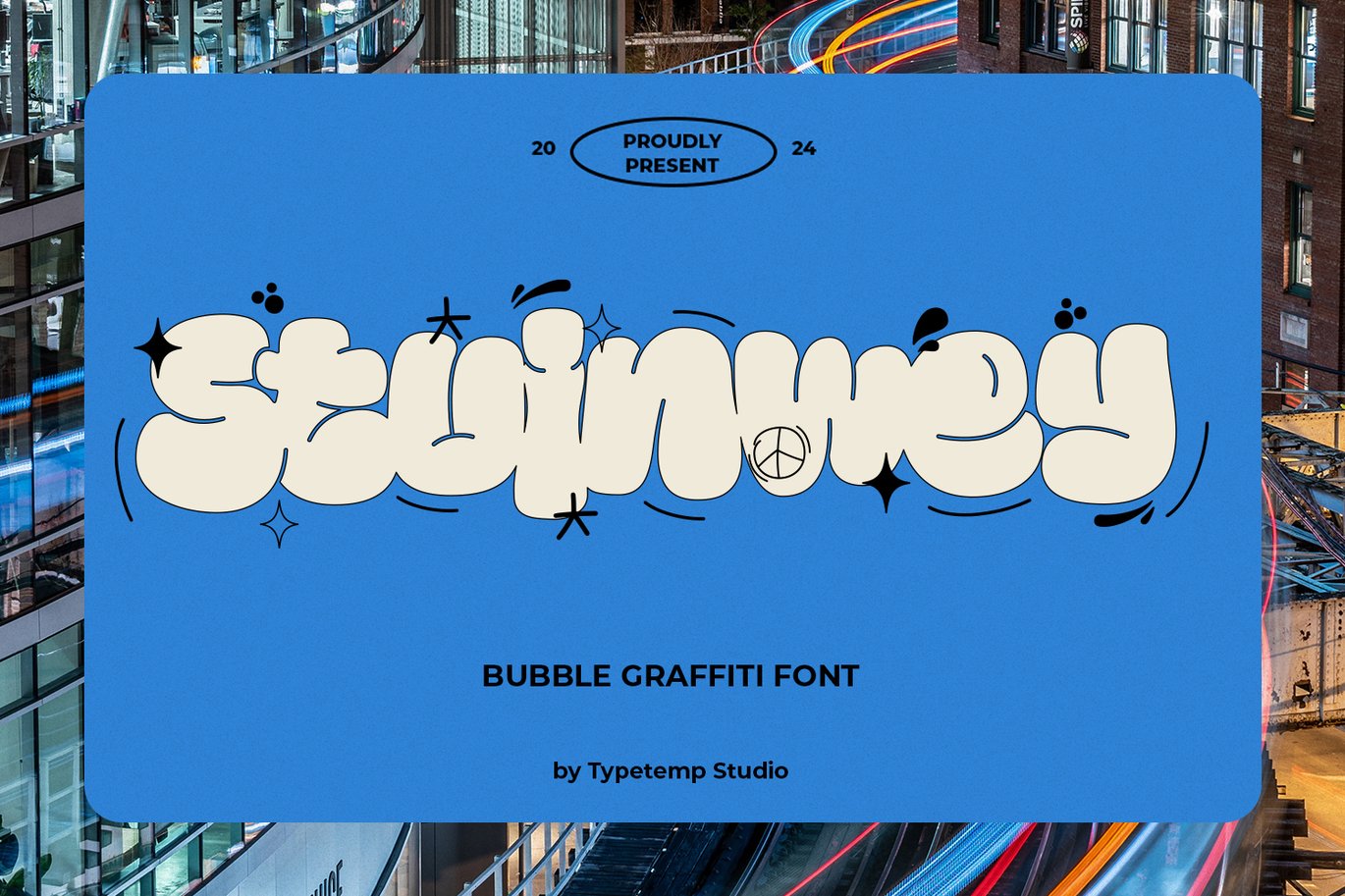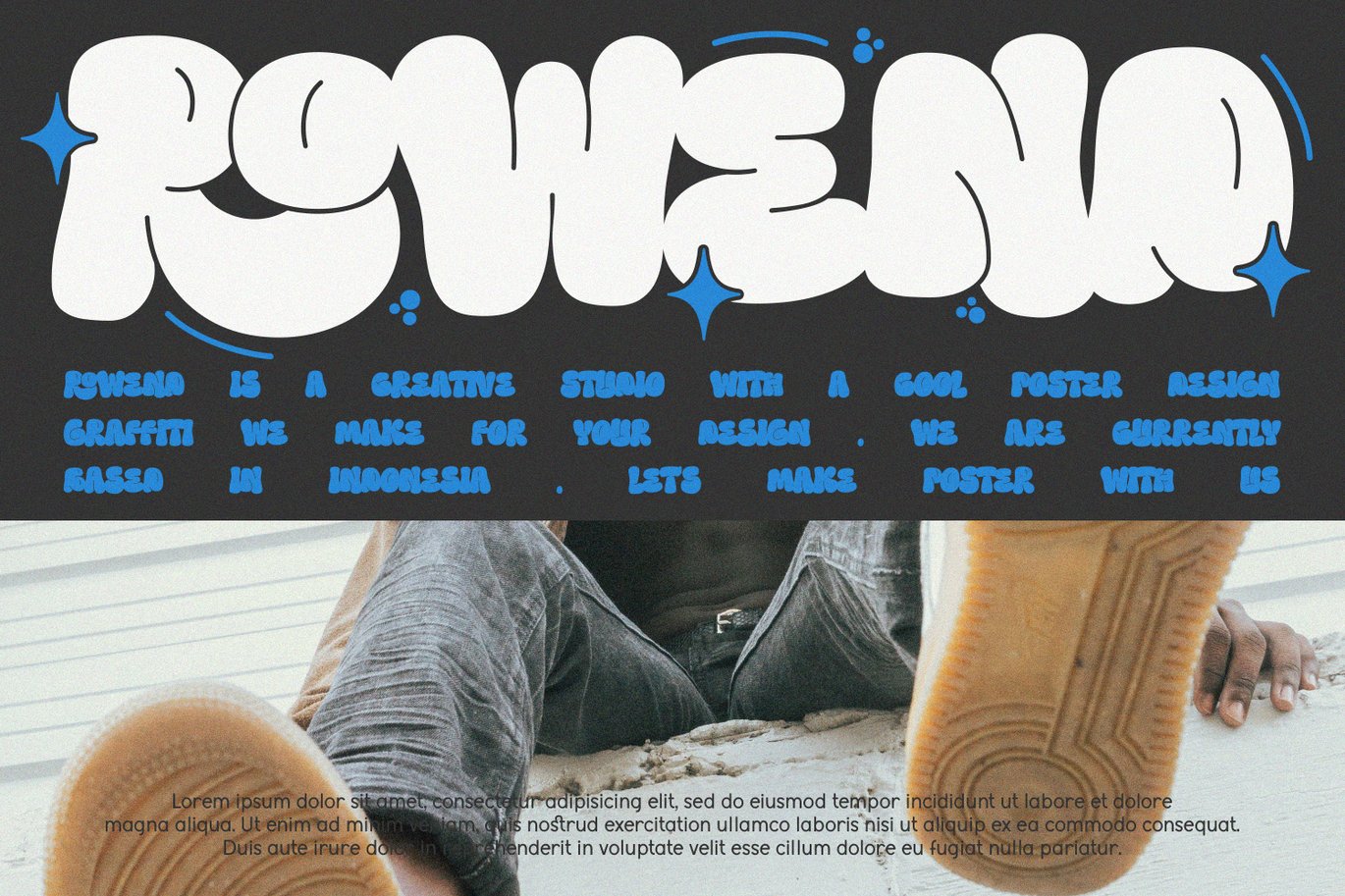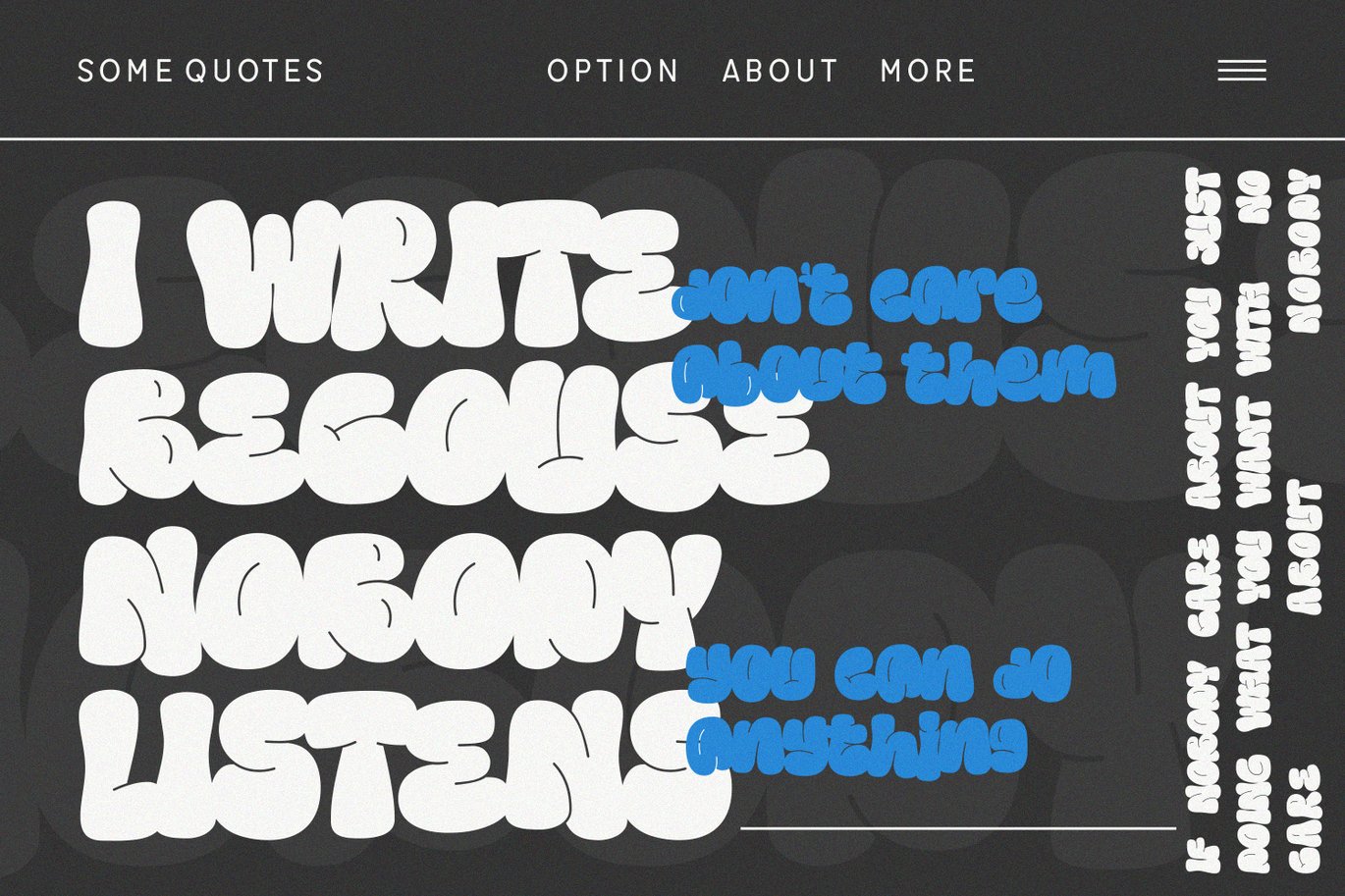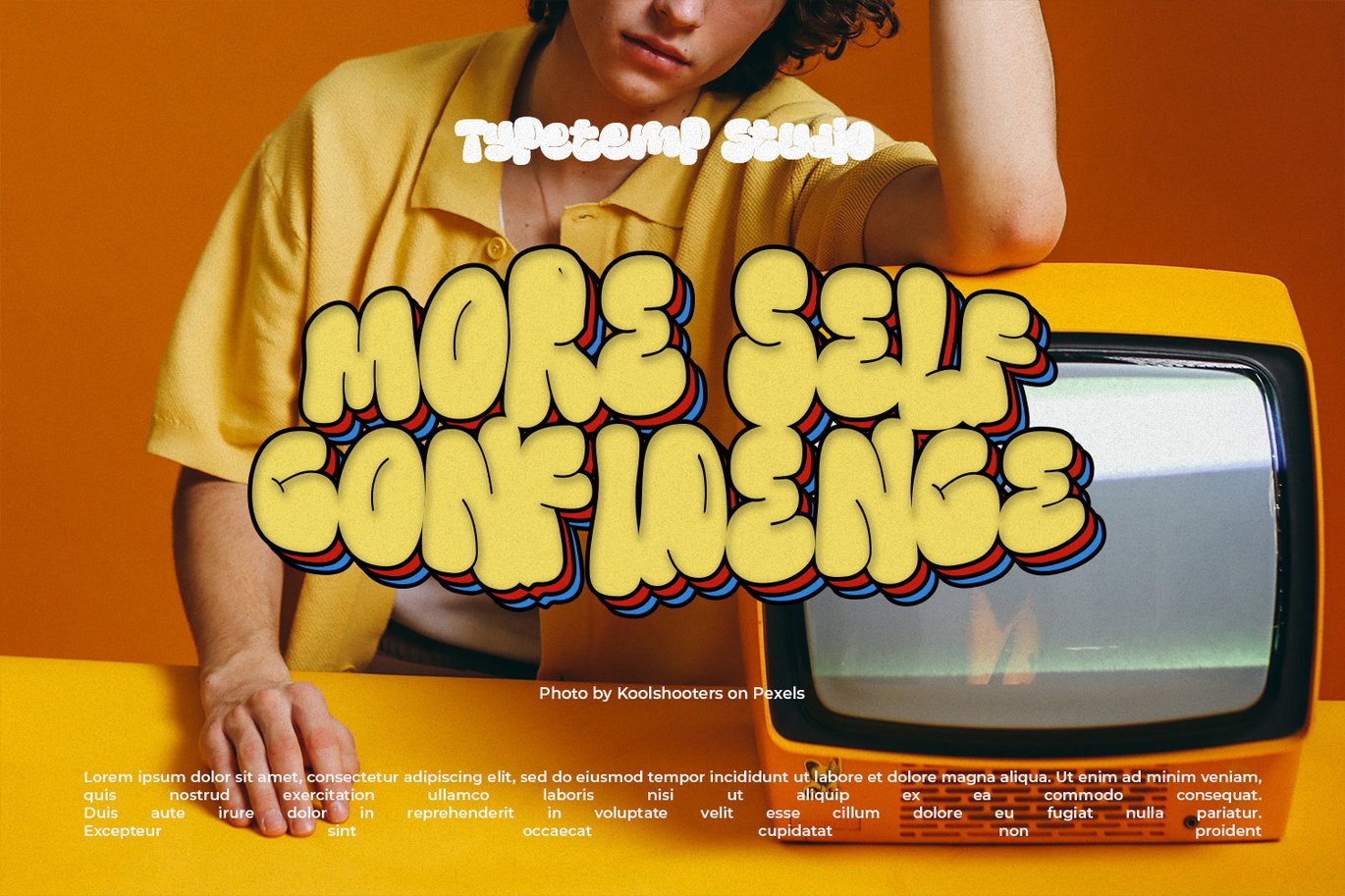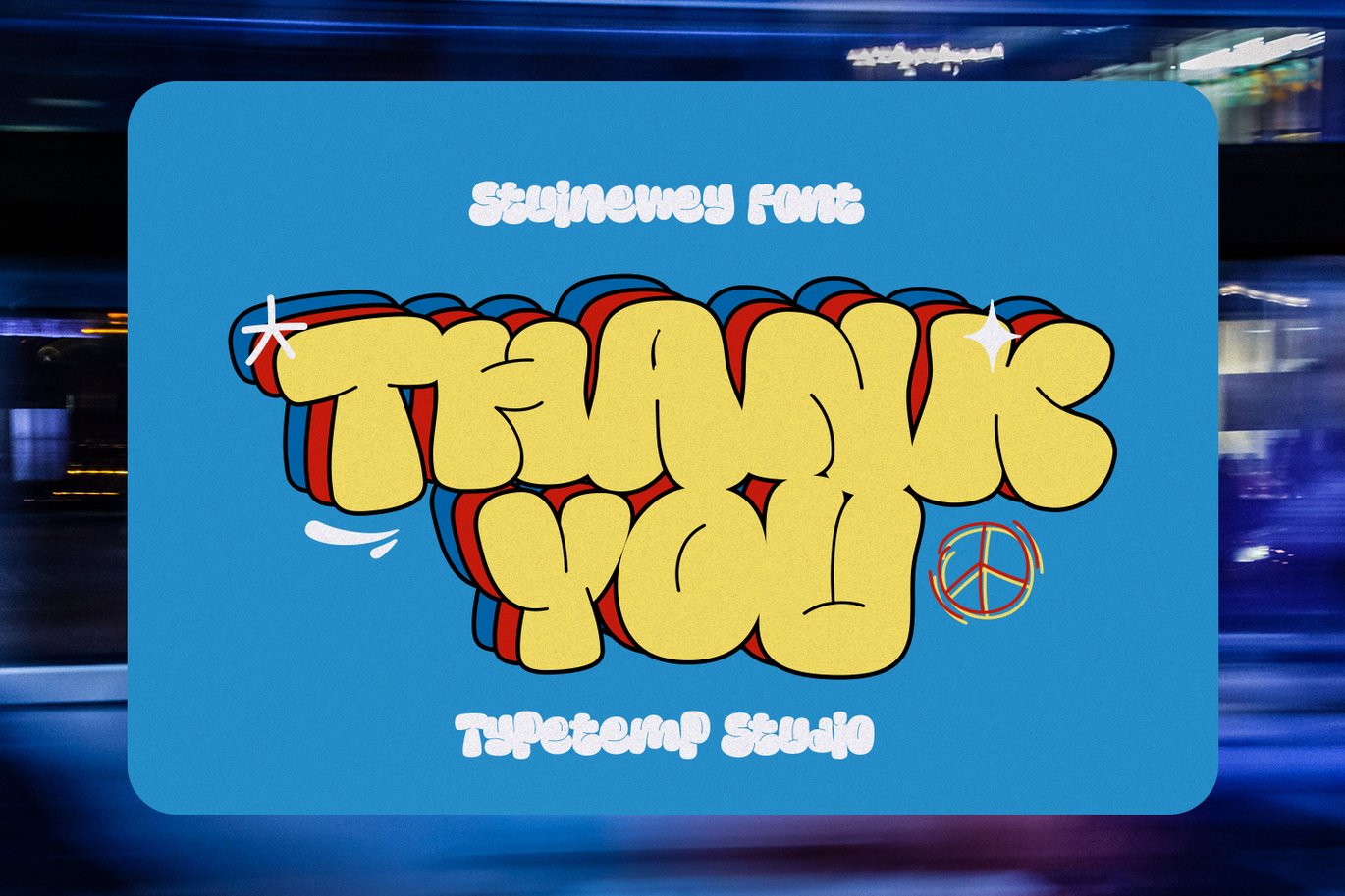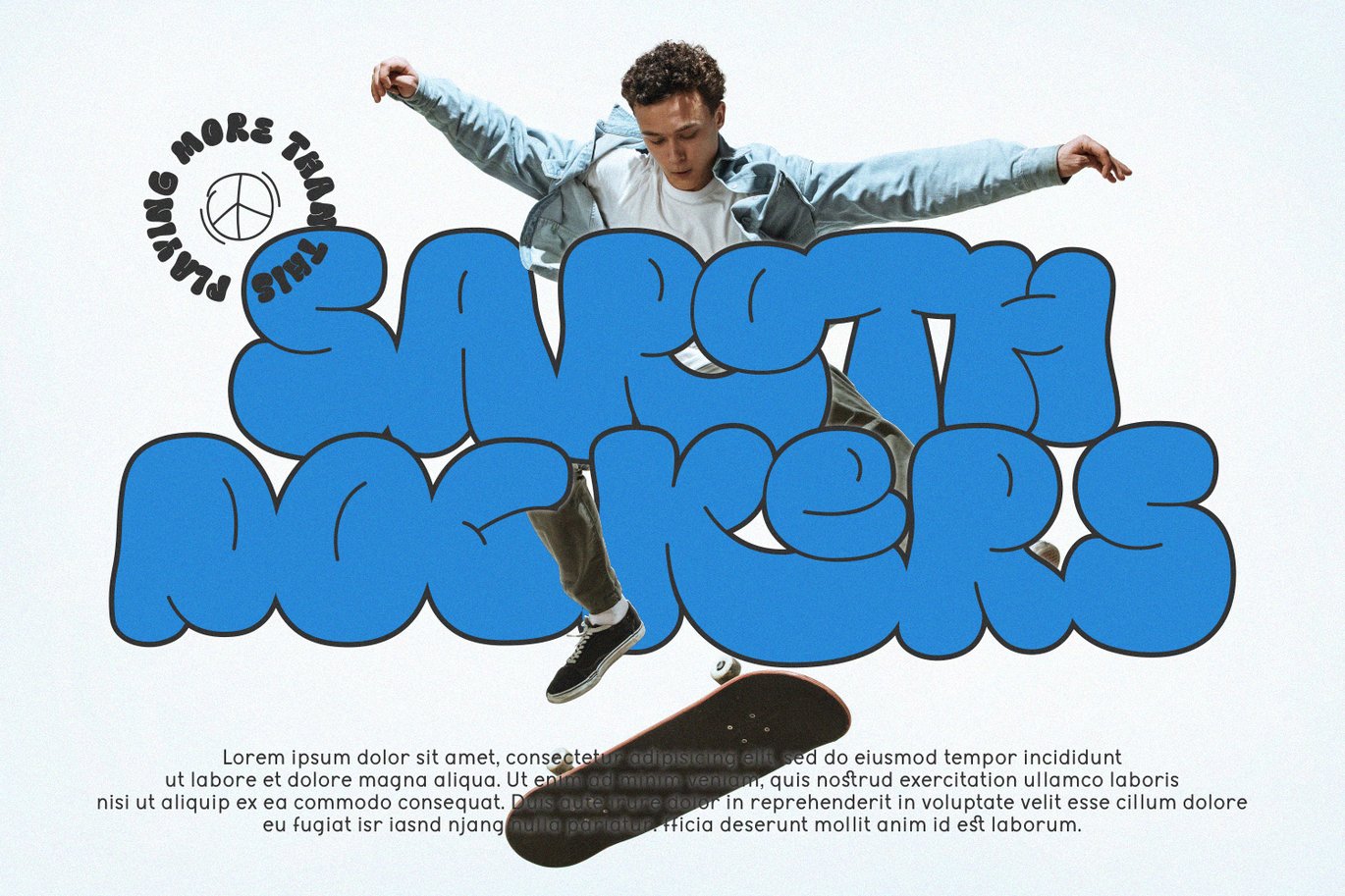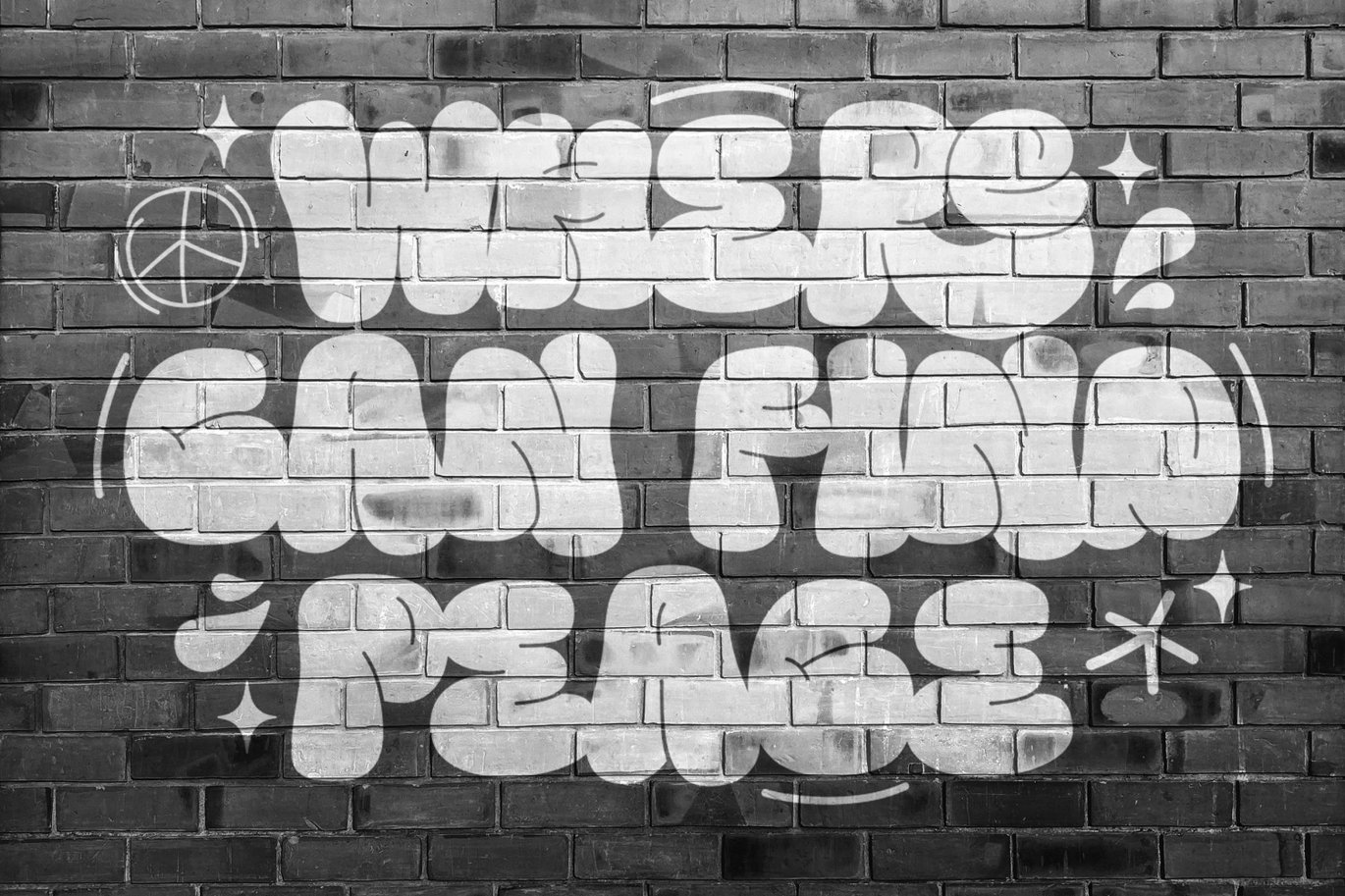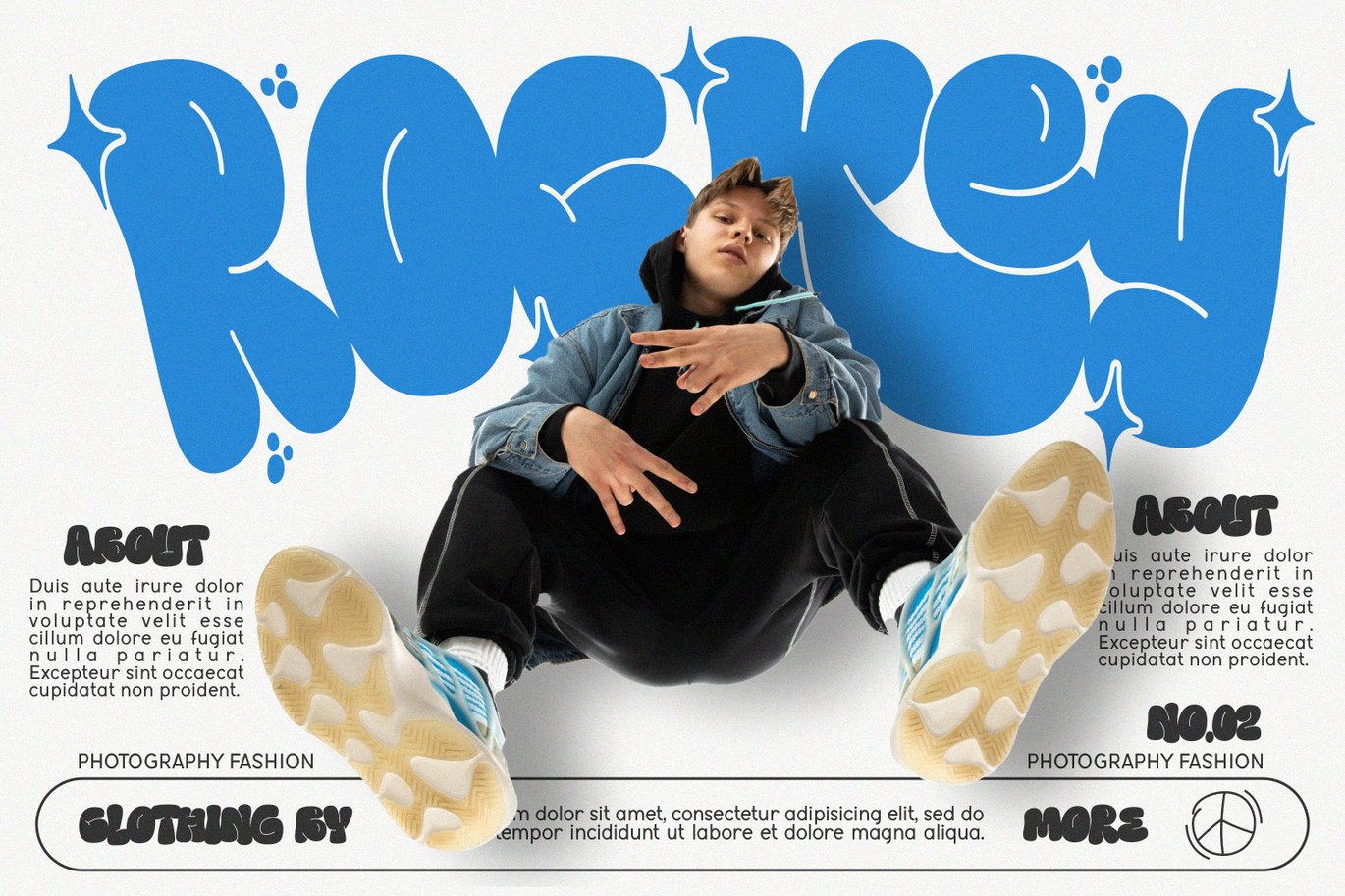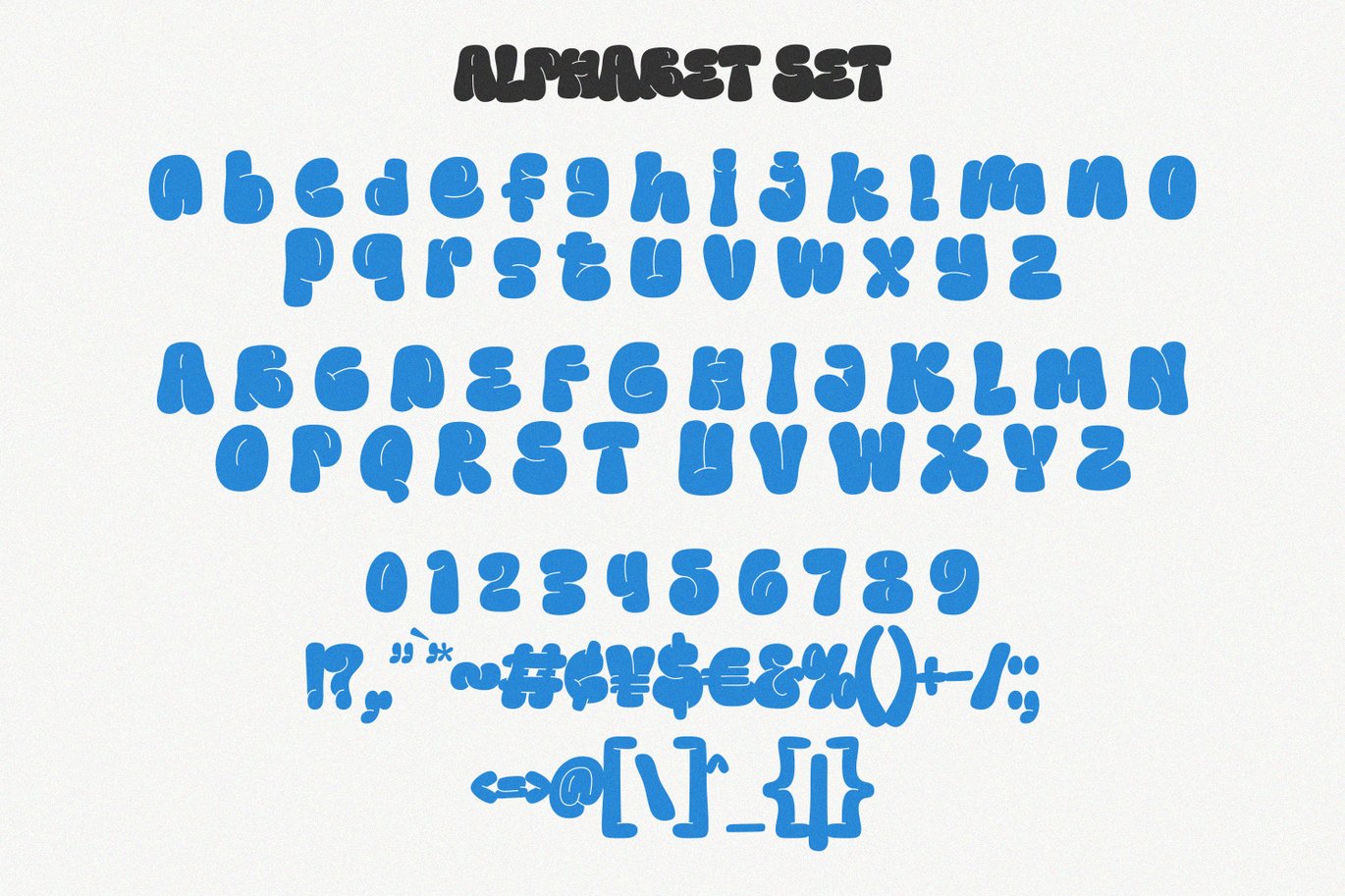
Stuinwey Display Font
Stuinwey – Bubble Graffiti Display a font with Graffity Bubble Style. Comes with alternatives and ligatures, helps to create stunning Posters, Branding, Tshirt, Social Media Graphics and much more.